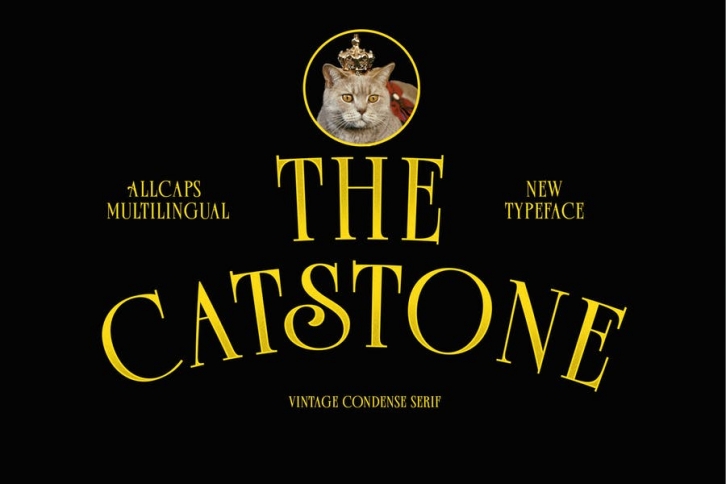
on this occasion I want to introduce the latest font, which is simple but elegant, in the uppercase it has a stylistic style so that it can make it easier for users.
here are some features in the font.
- Numeral
- Functional